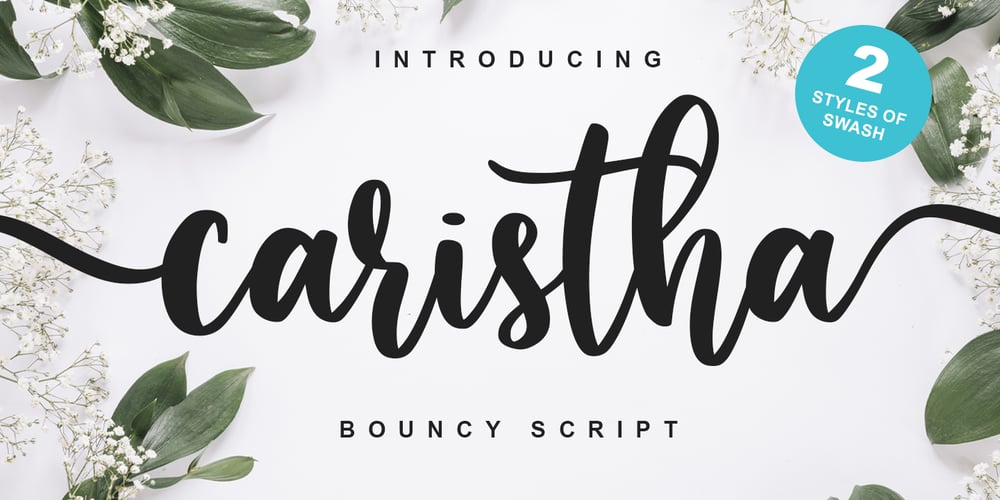
Caristha Font Family was designed by Abo Daniel and published by Abo Daniel. Caristha contains 1 styles and family package options. CARISTHA- the bouncy script -Caristha is great for branding, web design, product tag, wedding card, wedding invitation, logo, quotes, and moreit comes in 2 styles of swash.Very easy to access ( You can see on presentation pictures) underscore+lowercase for titling swash v.1 lowercase+underscore for ending swash v.1 underscore+two+lowercase for titling swash v.2 lowercase+underscore+two for ending swash v.2 Features: Uppercase Lowercase 2 styles of swash (all lowercase) Numeral Multilingual Support Ligatures PUA encoded